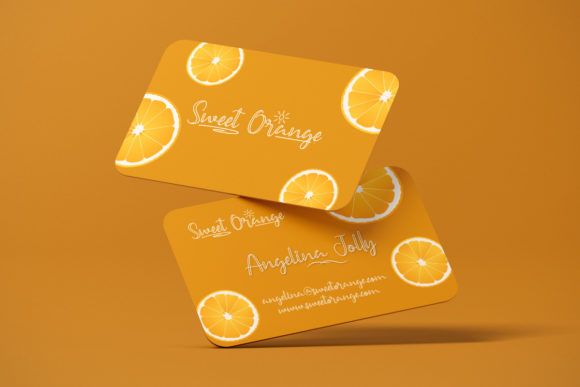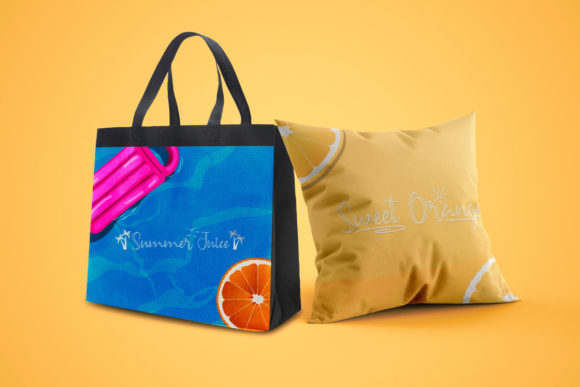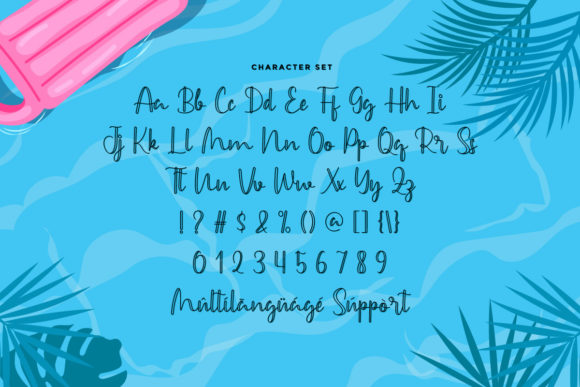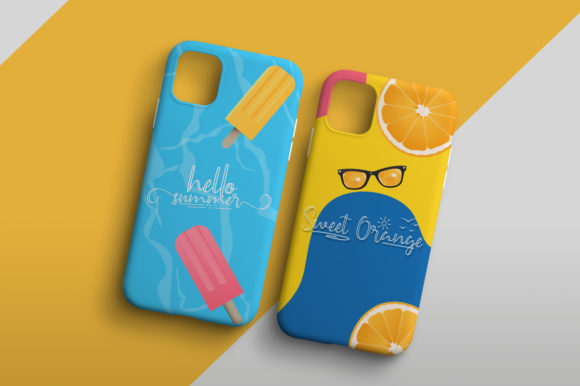
About Summer Juice Font
Summer Juice is a sweet and cursive handwritten font. This gentle font will look gorgeous on a variety of design ideas. It will add a joyful and romantic touch to each of your projects! Summer Juice is PUA encoded which means you can access all glyphs and swashes with ease!